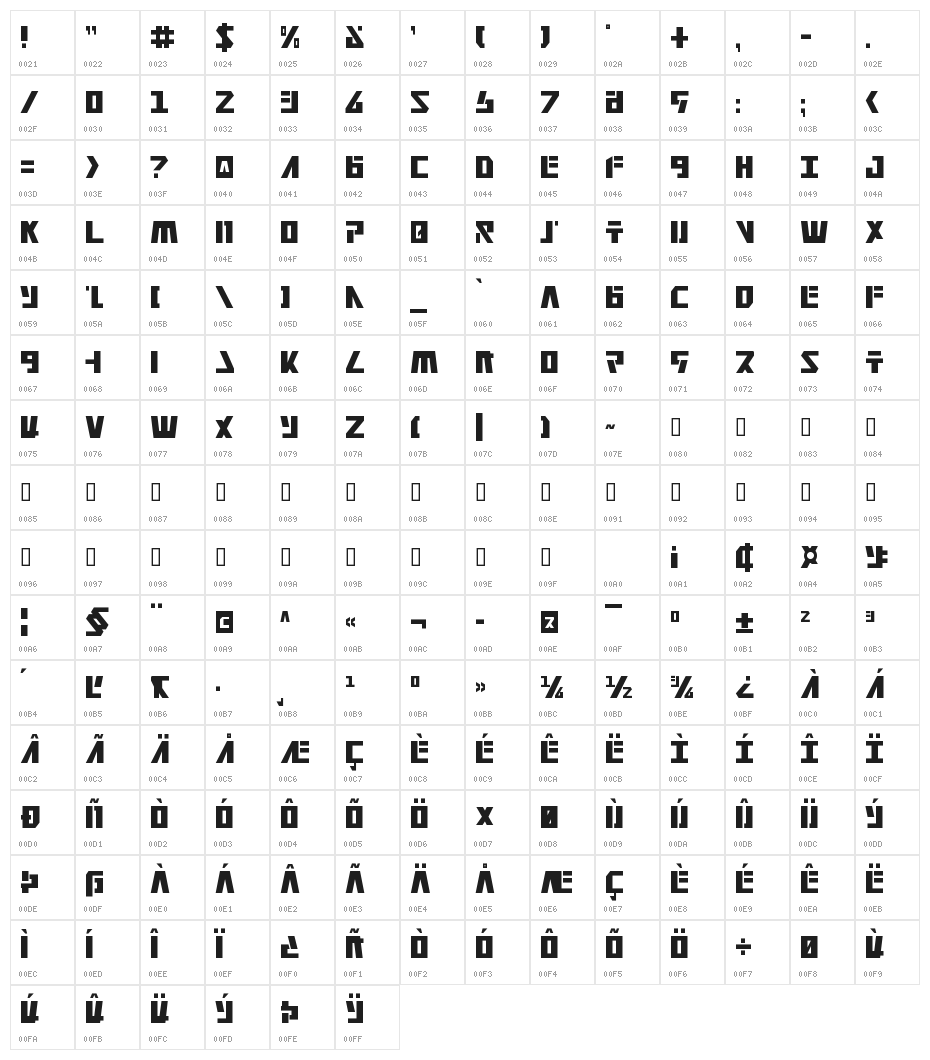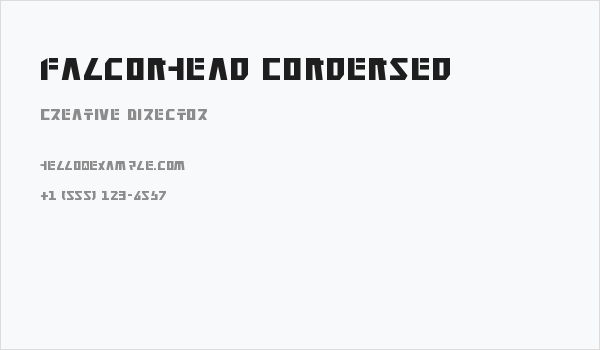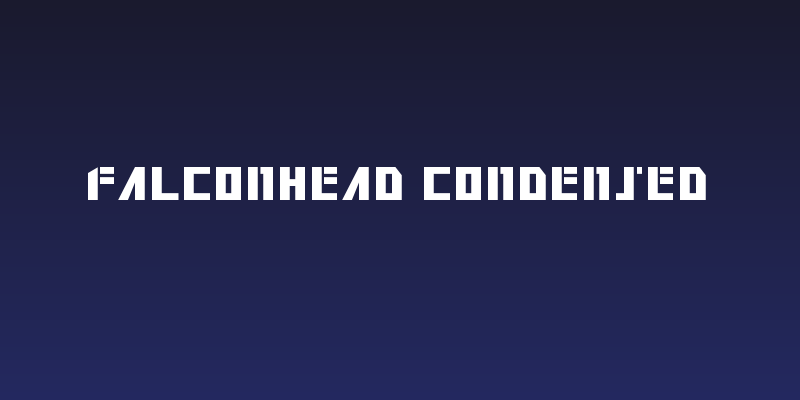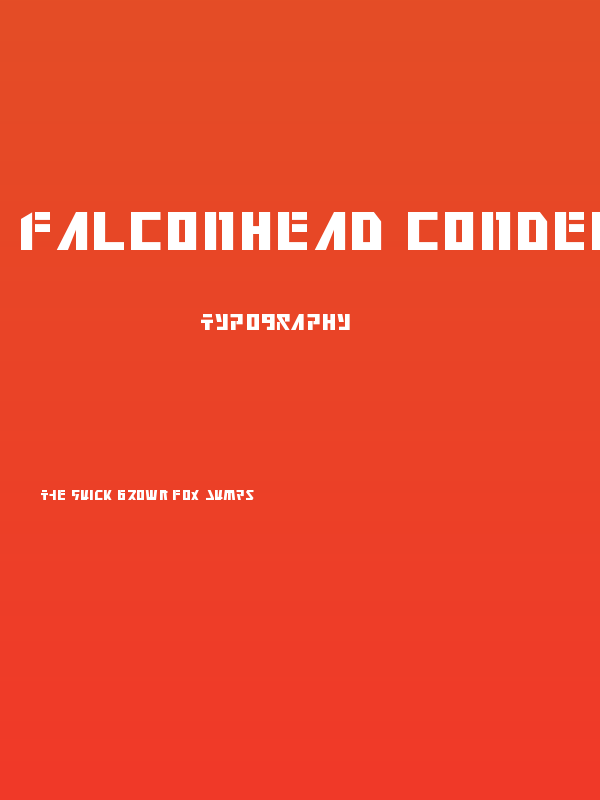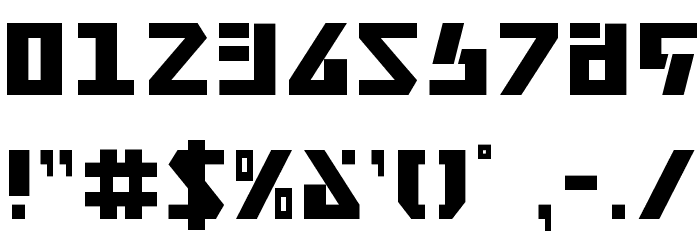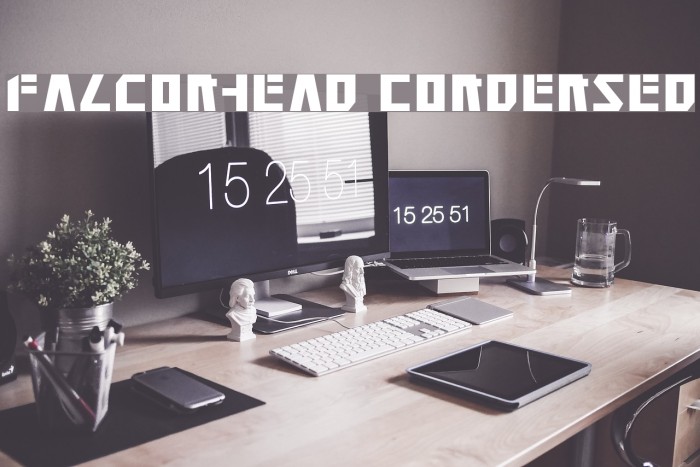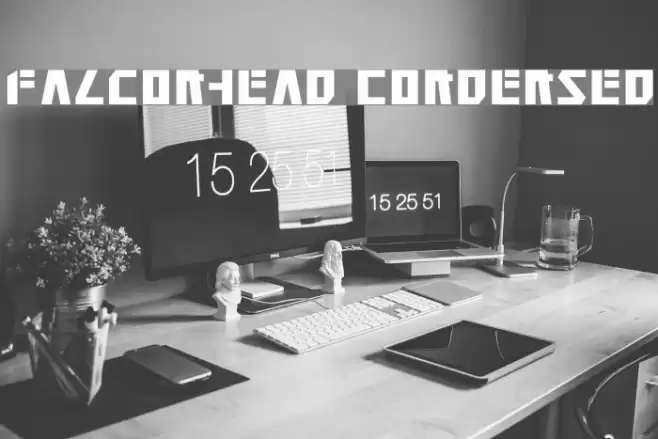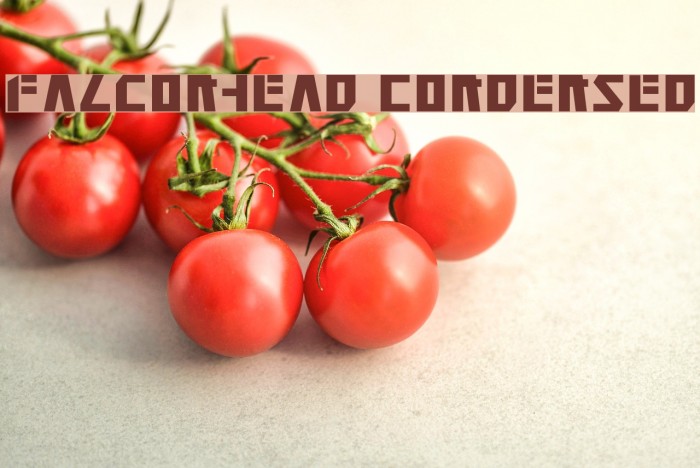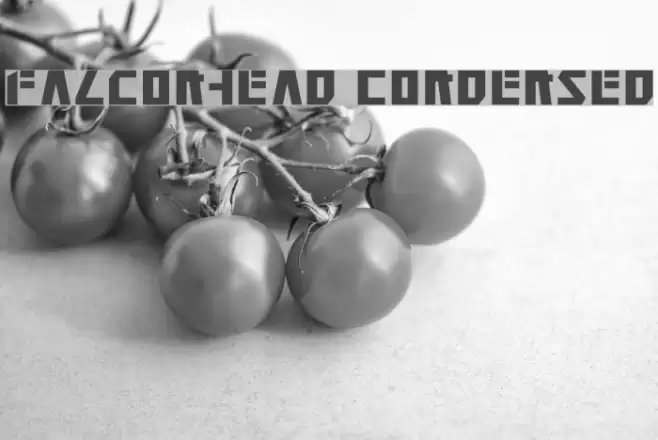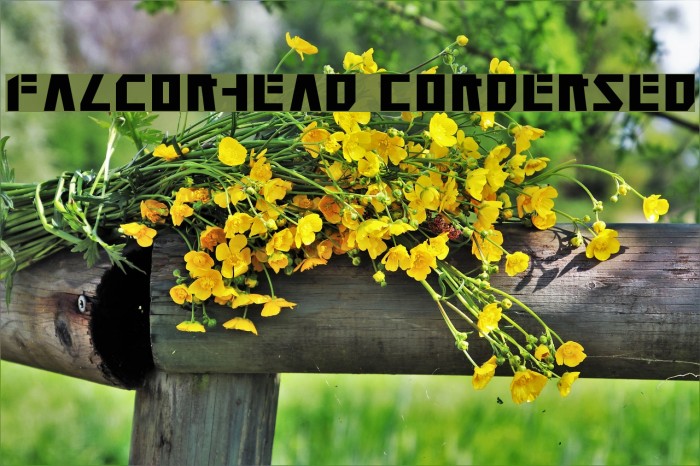
Falconhead Condensed Font
| Estilo general | Futuristic, Industrial |
| Proyectos propuestos | Ideal for sci-fi themed posters, video game titles, branding for tech companies, and any project requiring a modern, industrial aesthetic. |